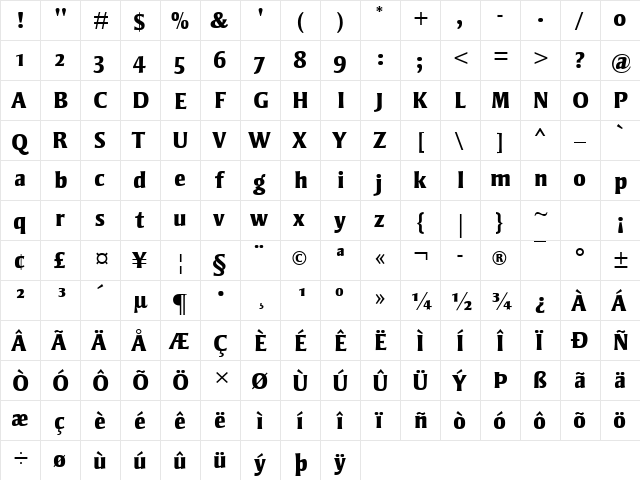
Strayhorn MT OsF Extra Bold Regular
| Foundry | Agfa Monotype Corporation |
Design Context for Strayhorn MT OsF Extra Bold Typeface
Strayhorn MT OsF Extra Bold offers clean, dependable letterforms without strong stylistic allegiance, making it a practical choice for designers who need flexibility. Its bold stroke weight gives it real presence on the page.